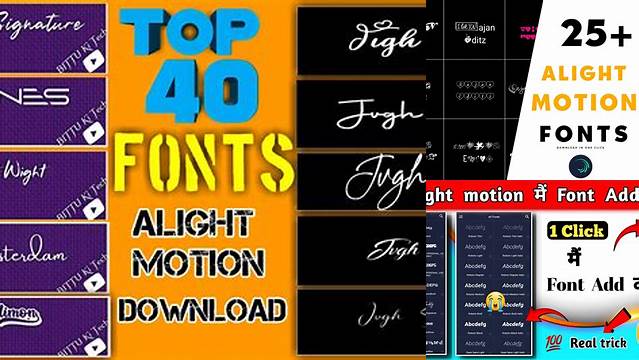
Alight Motion: Free Font Styles & Easy Import Guide
Hey guys! Ready to make your Alight Motion projects pop? Let's dive into how you can snag those awesome font styles and easily import them for free. We're talking about taking your videos from 'meh' to 'wow' with just the right typography. So, buckle up, and let's get started!
Alight Motion Fonts: An Overview
Let's kick things off with a general overview of Alight Motion fonts. When you're working on a project, the font you choose can seriously impact the vibe and message you're trying to convey. Alight Motion comes with a decent selection of built-in fonts, but sometimes you need something extra to really make your work stand out. That's where importing fonts comes in handy. You can find tons of cool and unique fonts online, often for free, that can add a personalized touch to your animations and videos. Whether you're going for a sleek, modern look or something more playful and artistic, the right font can make all the difference. So, don't underestimate the power of typography in your creative projects!
Finding Free Fonts for Alight Motion
Troubleshooting Font Import Issues in Alight Motion
Sometimes, things don’t go as planned. Let’s troubleshoot some common font import issues in Alight Motion. If you're having trouble importing a font, first make sure that the font file is in the correct format (.ttf or .otf) and that it's not corrupted. Try downloading the font again from a different source to rule out a corrupted file. Also, double-check that the font is properly installed on your device, following the correct steps for your operating system (Android or iOS). If the font still doesn't show up in Alight Motion, try restarting the app or your device. Sometimes, a simple restart can resolve the issue. If you're using a font management app on iOS, make sure the app has the necessary permissions to install fonts system-wide. And if all else fails, consult the Alight Motion help resources or online forums for additional troubleshooting tips. Don't give up – with a little persistence, you'll get those fonts imported and ready to use.
Alight Motion Text Effects with Custom Fonts
Alright, now for the fun part! Let’s explore some Alight Motion text effects with custom fonts. Once you've imported your favorite fonts, you can start experimenting with different text effects to create visually stunning animations. Alight Motion offers a wide range of text effects, including shadows, glows, outlines, and 3D transformations. You can also animate the text properties, such as position, scale, and rotation, to create dynamic and engaging motion graphics. Try combining different text effects and animations to achieve unique and eye-catching results. For example, you could create a neon-glowing text effect with a futuristic font or a vintage-style text animation with a classic serif font. The possibilities are endless, so let your creativity run wild and see what amazing text effects you can create with your custom fonts in Alight Motion.
Best Font Styles for Alight Motion Projects
Choosing the best font styles for Alight Motion projects can really elevate your work. Think about the overall tone and message of your project. Are you going for something modern and sleek, or more vintage and artistic? For modern projects, sans-serif fonts like Helvetica, Arial, and Montserrat are great choices. They're clean, legible, and work well in a variety of contexts. If you're aiming for a vintage or classic look, consider using serif fonts like Times New Roman, Garamond, or Playfair Display. These fonts have a more traditional feel and can add a touch of elegance to your designs. Script fonts, like Brush Script or Pacifico, are perfect for adding a personal and handwritten touch to your projects. Just be sure to use them sparingly, as they can be harder to read in large blocks of text. Ultimately, the best font style for your Alight Motion project depends on your creative vision and the message you want to convey. Experiment with different fonts and see what works best for you.